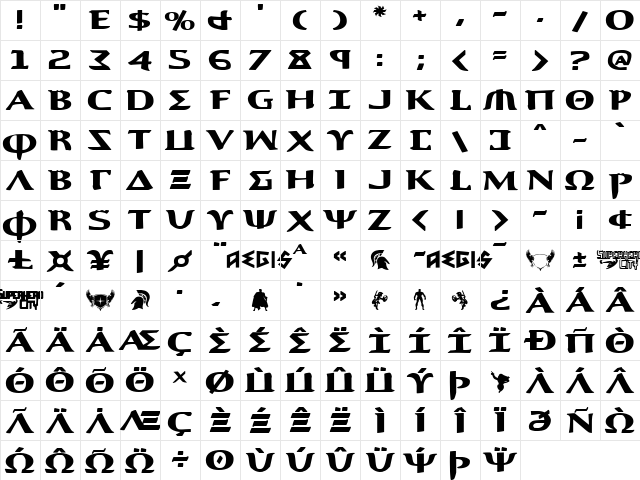
Aegis Expanded Expanded
Design Context for Aegis Expanded Typeface
Aegis Expanded is a composed and adaptable typeface that performs quietly and consistently across a wide range of design contexts.